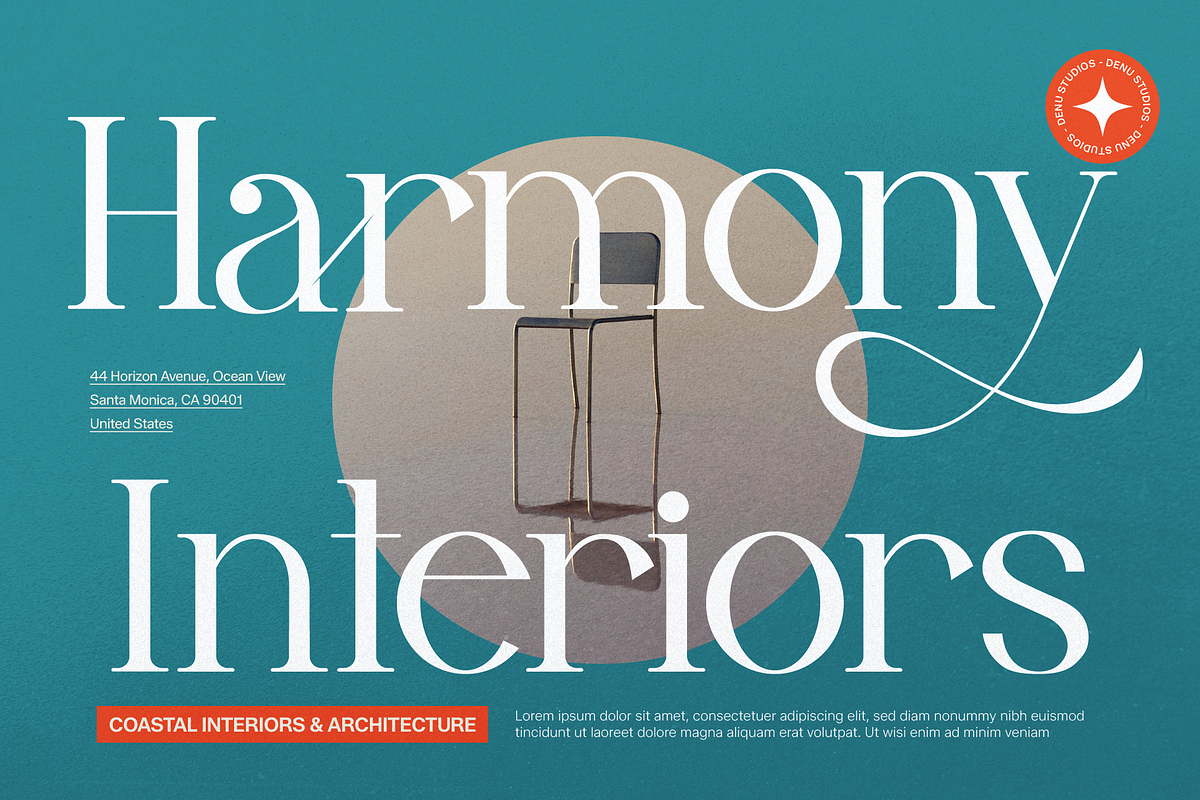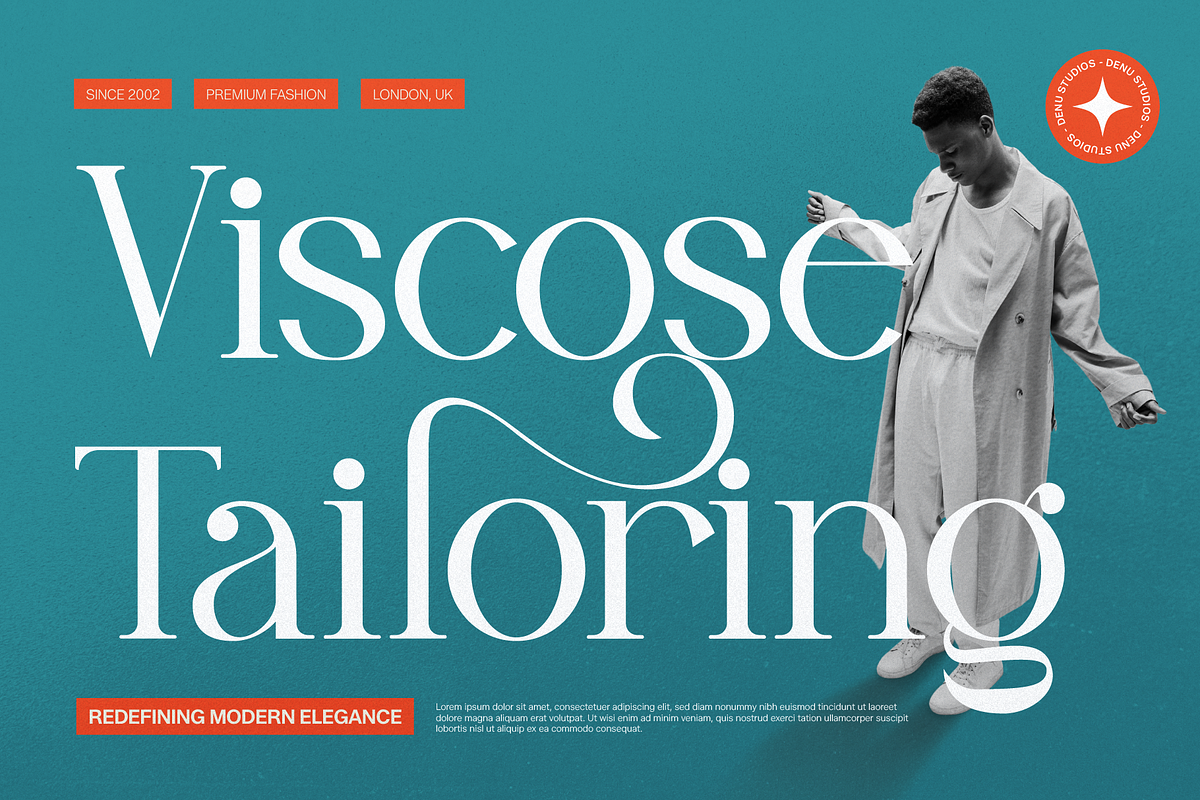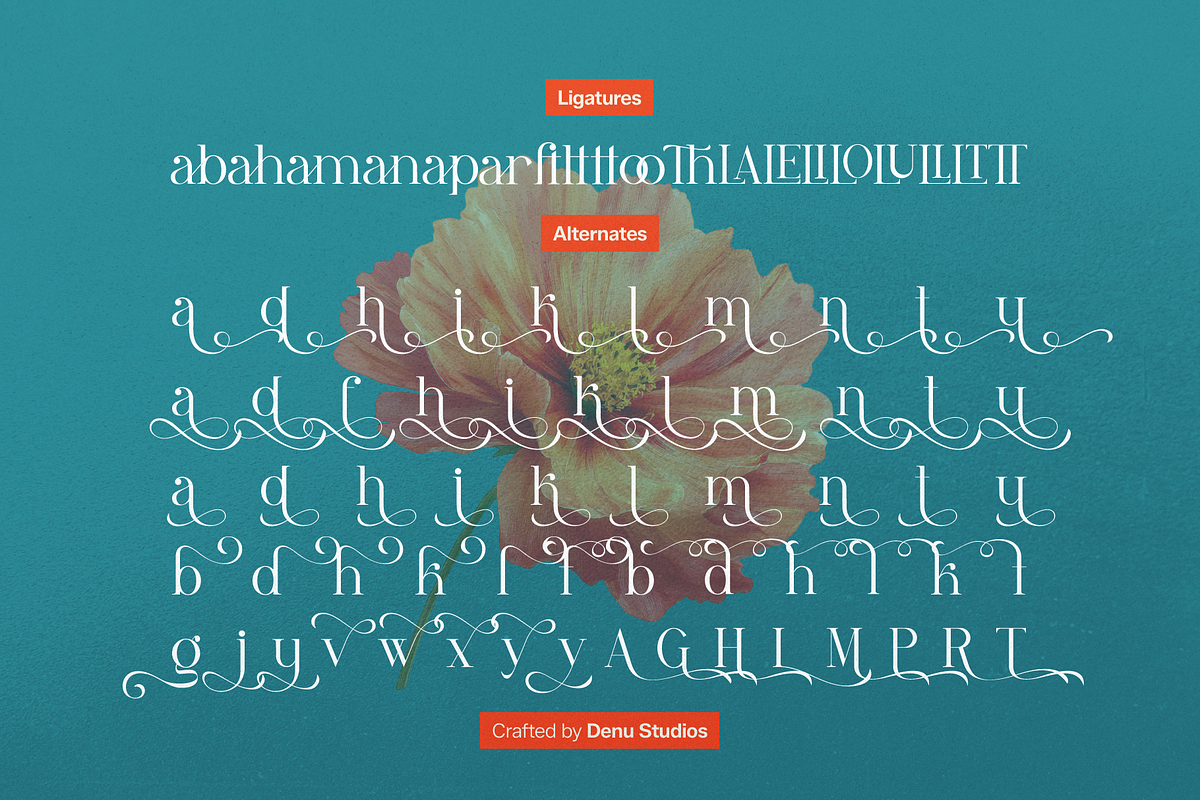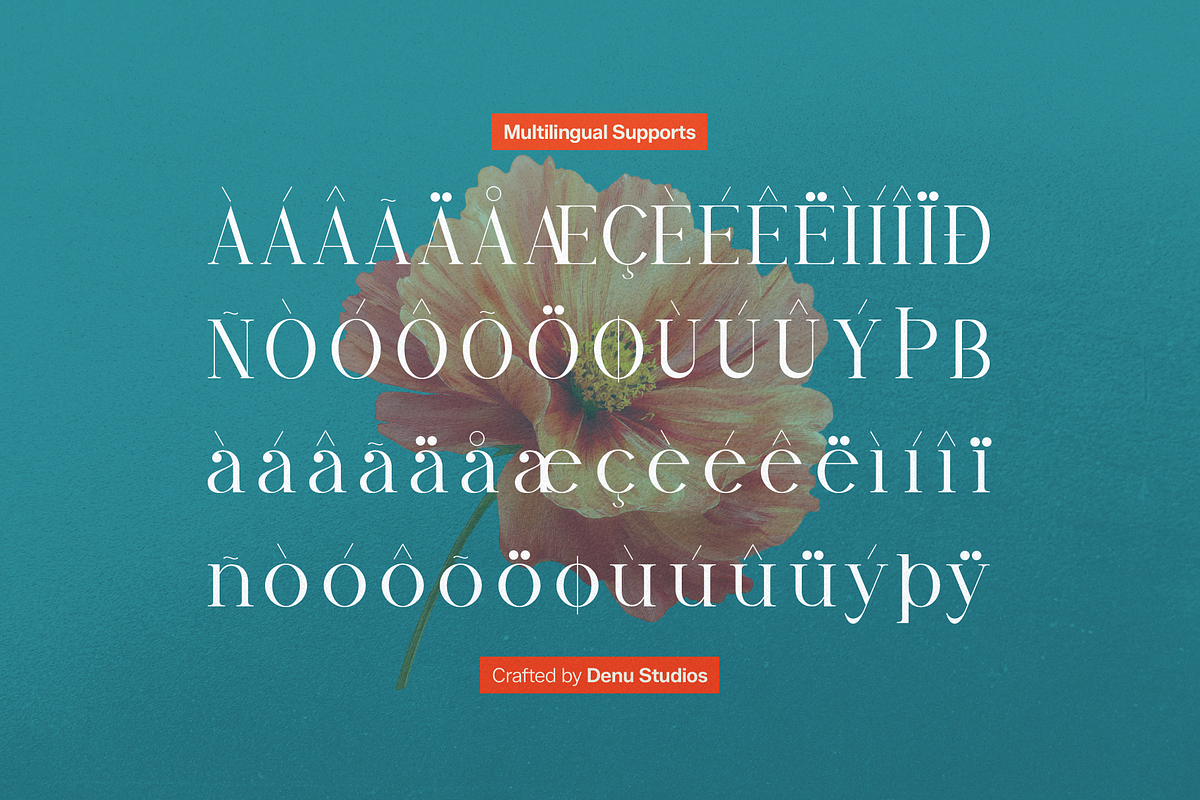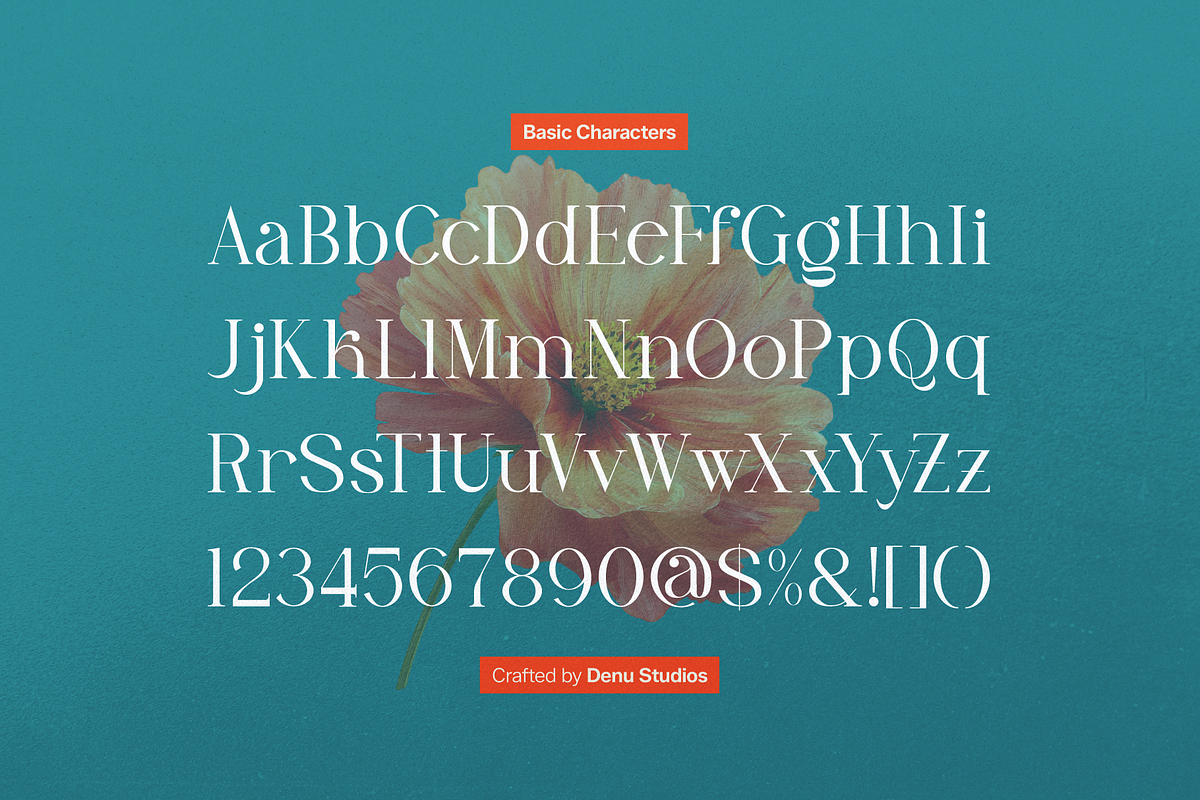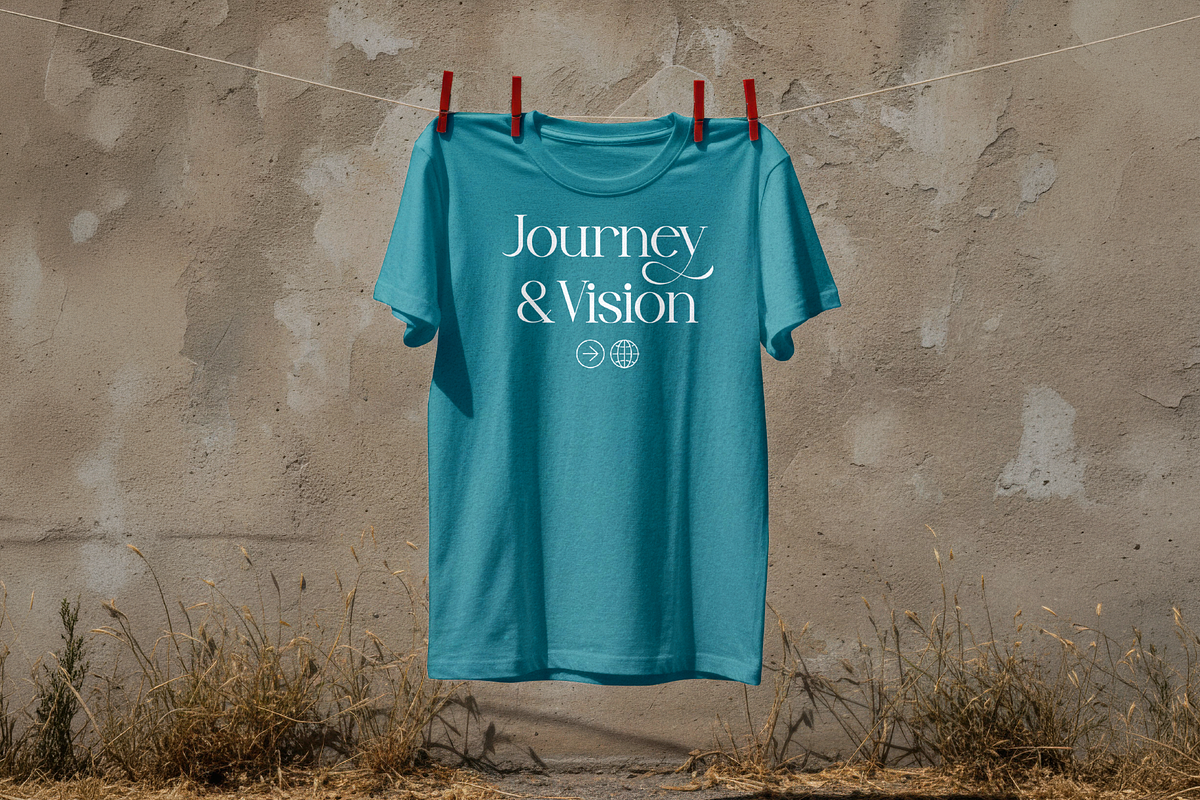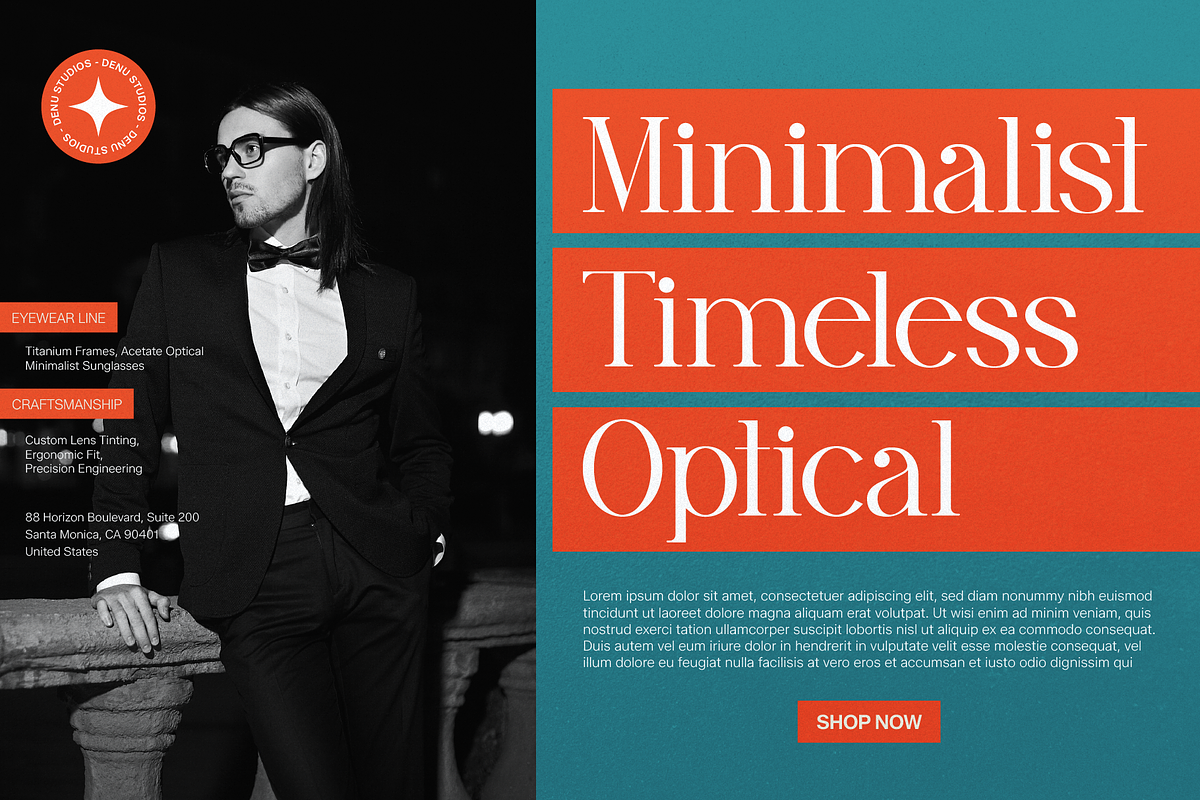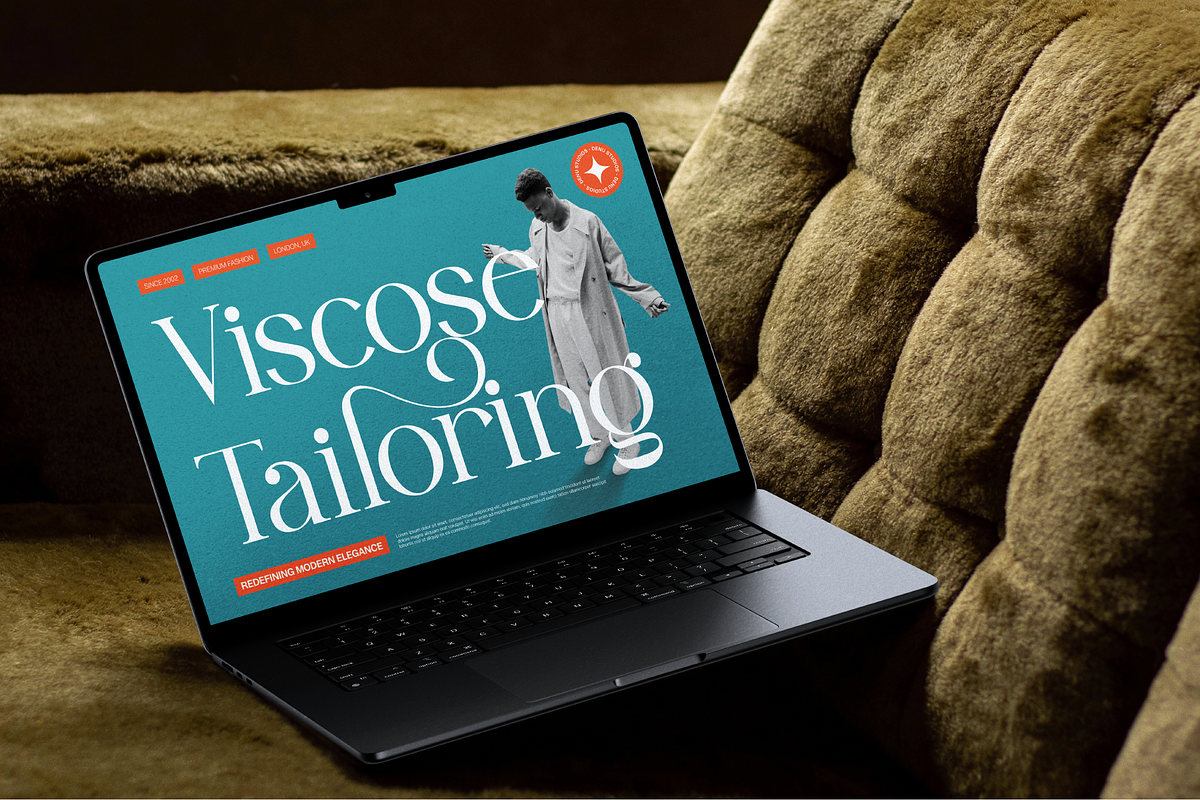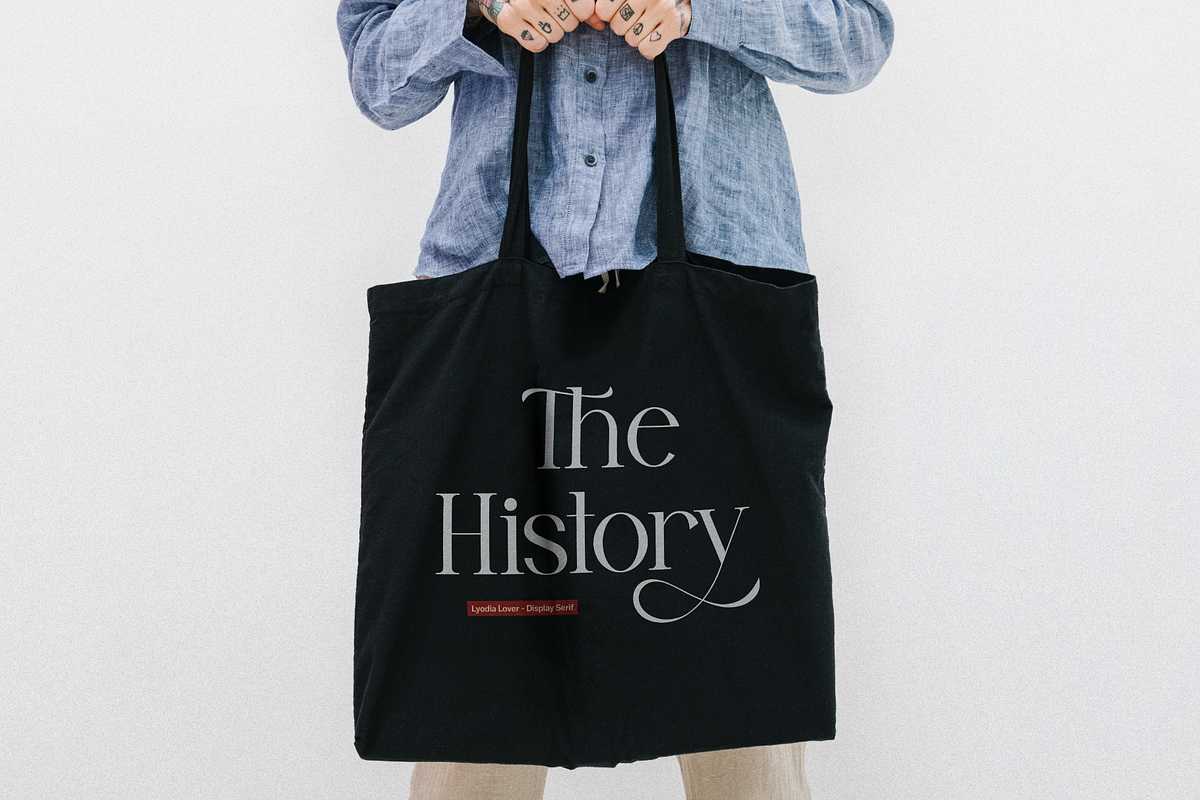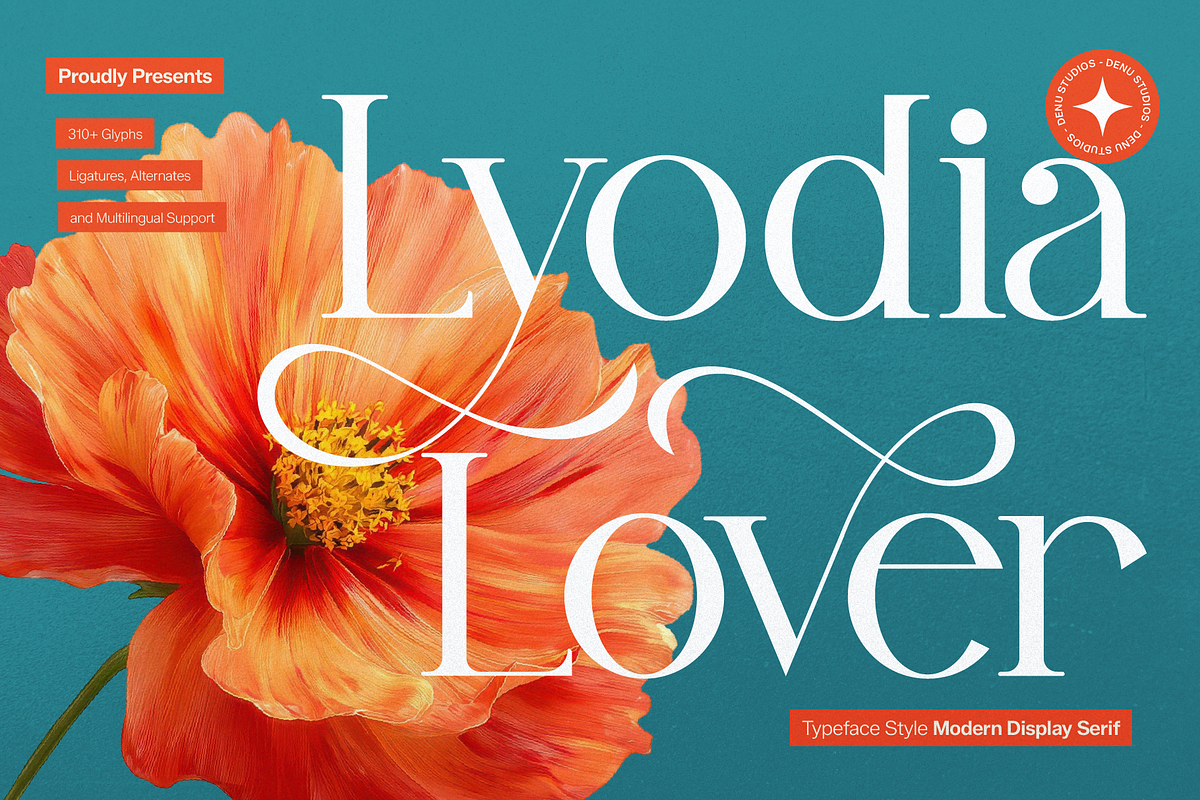
Lyodia Lover | Modern Display Serif
**Lyodia Lover | Modern Display Serif, **from Denustudios, suitable for any projects such as: logos, branding projects, homeware designs, product packaging, mugs, quotes, posters, shopping bags, t-shirts, book covers, name card, invitation cards, greeting cards, label, photography, watermark, special events, and all your other lovely projects that need a Serif Font taste.
Standard glyphs
Alternate and Ligature
Fonts include multilingual support